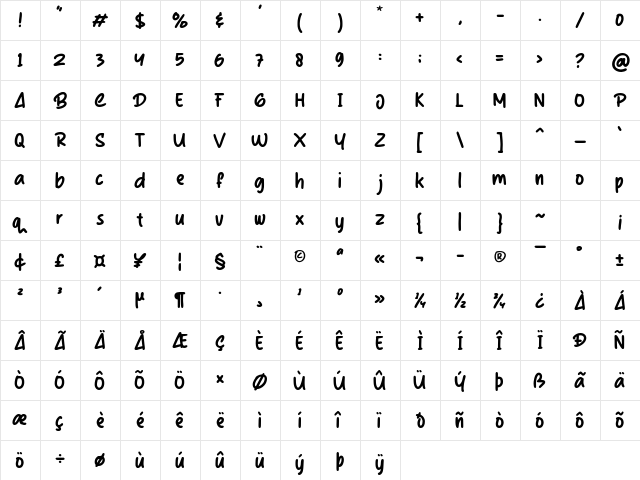
Shaeila Maker Regular
| Foundry | Kong Font |
| Designer | Kong Font |
Design Context for Shaeila Maker Typeface
Shaeila Maker is a composed and adaptable typeface that performs quietly and consistently across a wide range of design contexts.